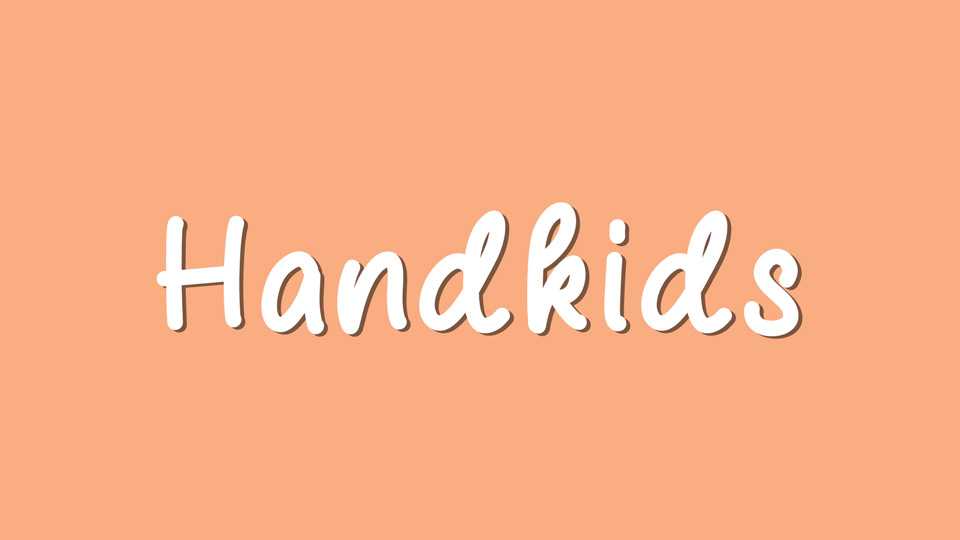
Download Handkids font, a fun and whimsical handwritten typeface filled with a cheerful, natural vibe. Whether you need it for greeting cards, quotes, personal branding, or websites and social media, Handkids font is the perfect choice for a truly authentic look.